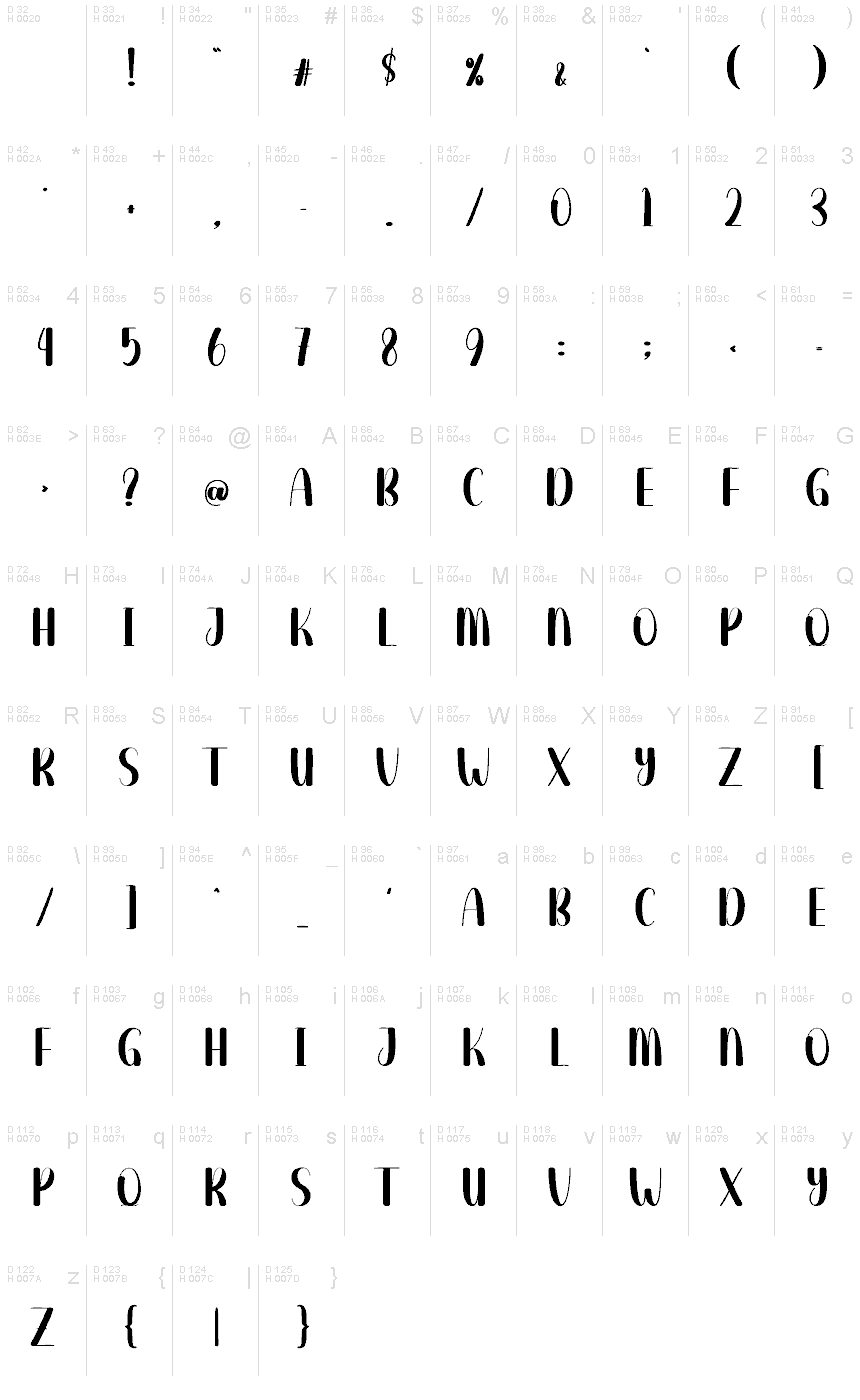
Blue Mode
Blue Mode font by Andi Moz is a handwritten condensed type that brings an elegant flow to a variety of design projects. The font features art deco influences which can be easily seen in the geometrical shapes of some characters. Despite its vintage aesthetic, Blue Mode fits exceptionally well within contemporary environments. While legibility isn’t one of its strongest suits, decorative flair and stylish elegance definitely are!
The free font will make an excellent choice when used in branding for luxury products such as perfumes or cosmetics. It’s also unrivaled when it comes to fashion magazine covers, book covers, and upscale event invitations.